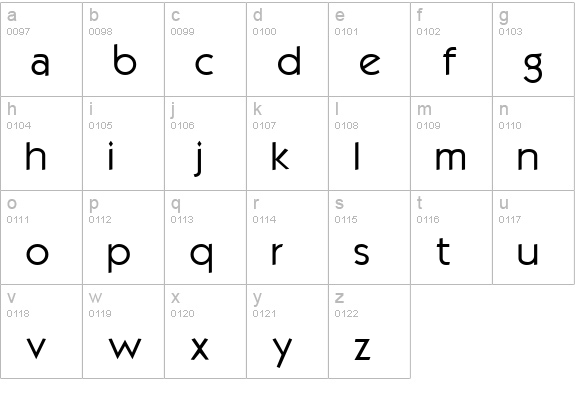
DG_Kabel font is a modern and sleek typeface that exudes a sense of sophistication and professionalism. With its clean lines and rounded edges, this font is perfect for a wide range of design projects, from branding to editorial design. The versatility of DG_Kabel font makes it a go-to choice for designers looking to add a touch of elegance to their work. What's even better is that DG_Kabel font is available for free download at FontsMarket.com. This means that you can easily access this stylish font and use it in your projects without any cost. Whether you're working on a corporate presentation, a website design, or any other creative endeavor, DG_Kabel font will elevate your work and give it a polished look. Don't miss out on this amazing opportunity to enhance your designs with the timeless appeal of DG_Kabel font.